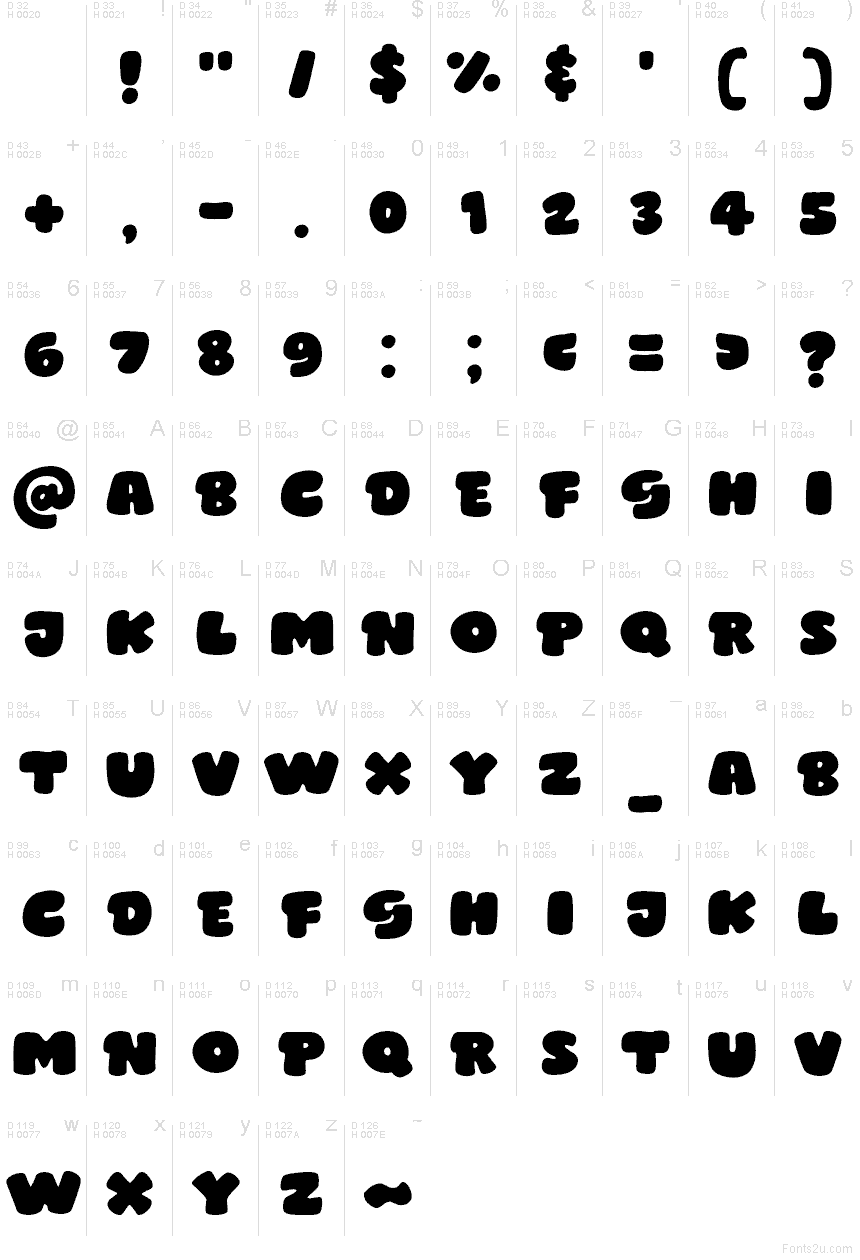
Tonight Light
Tonight Light font by MJType is a free cartoon display typeface with chunky, bubble-like letters that feel soft and squishy, almost like they’re made of glossy candy. The rounded forms and tight rhythm give every word a sense of bounce, making headlines look friendly, loud, and easy to read even from a distance. Its bold, inky silhouettes hold together well, so you can pile on bright colors, gradients, or textures without losing clarity.
Using Tonight Light, you can bring instant playfulness to kids’ book covers, birthday invitations, game titles, YouTube thumbnails, posters, and classroom printables. This free font shines when used big and bold, letting its pillowy shapes and compact spacing do the talking. Try pairing it with a clean, simple sans serif for body text to keep your layouts readable while Tonight Light handles the fun, attention-grabbing moments.